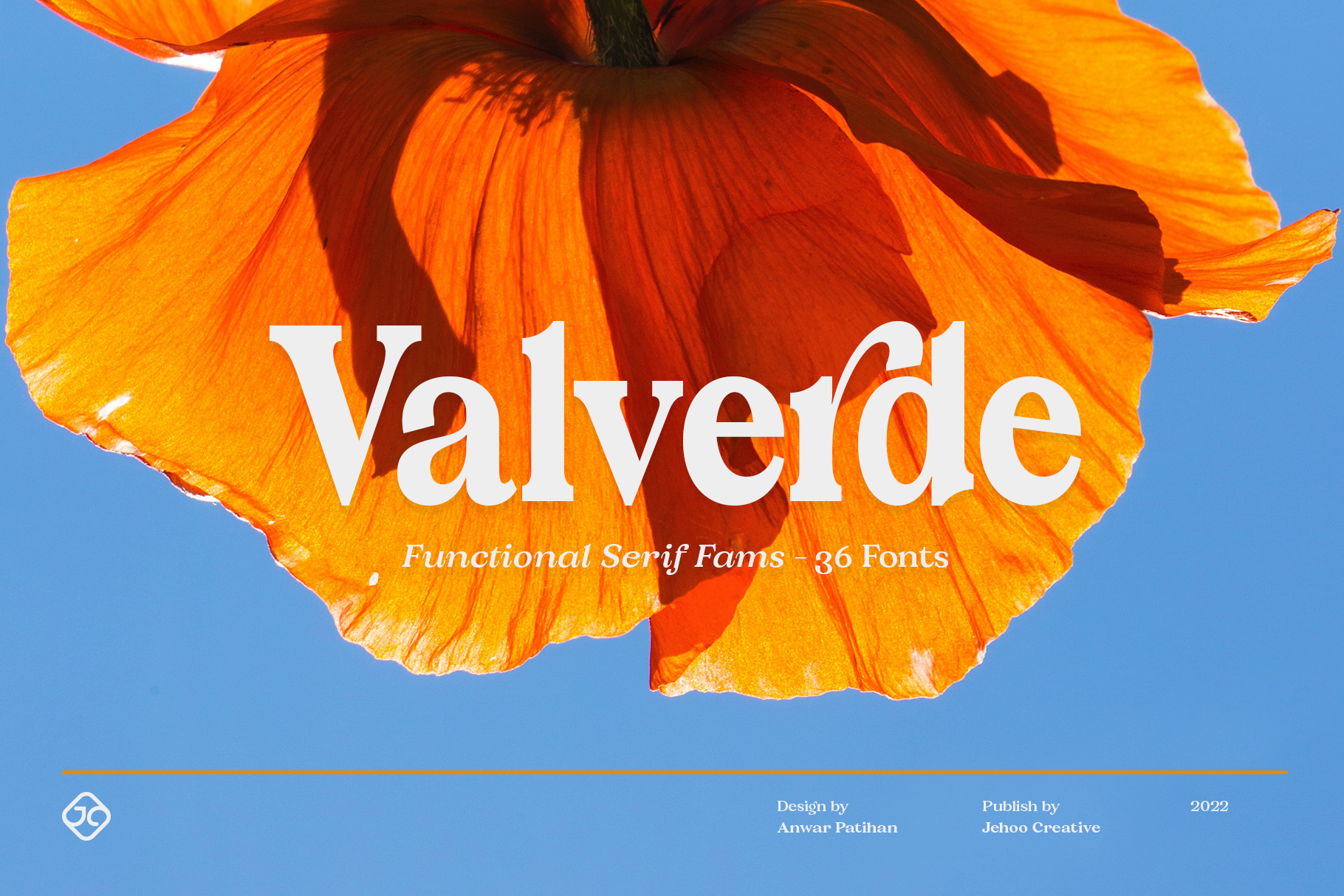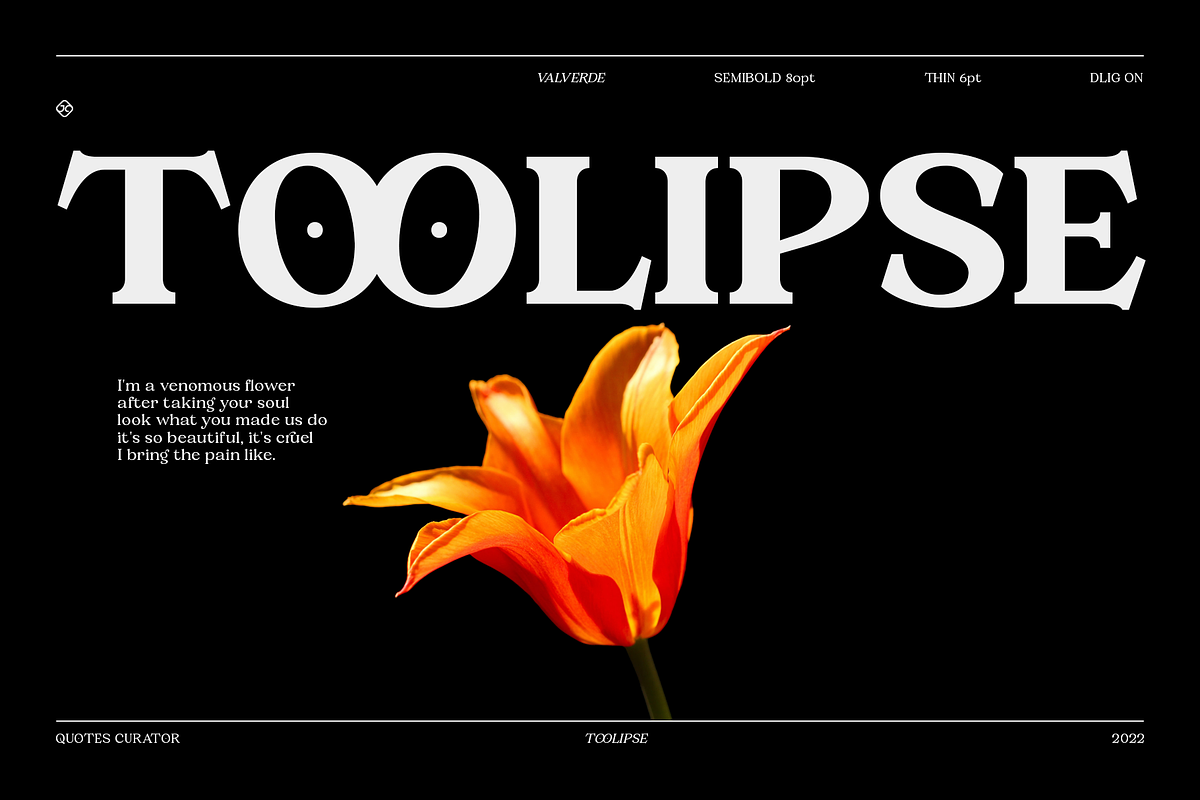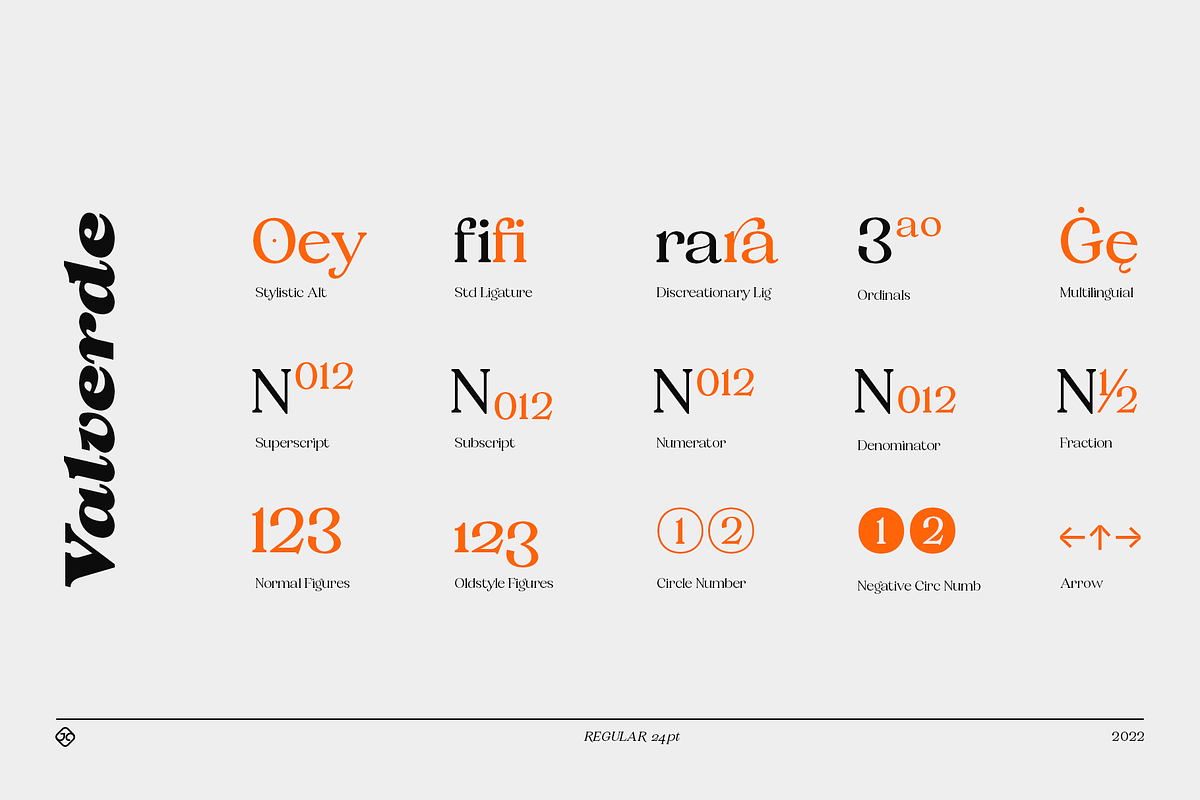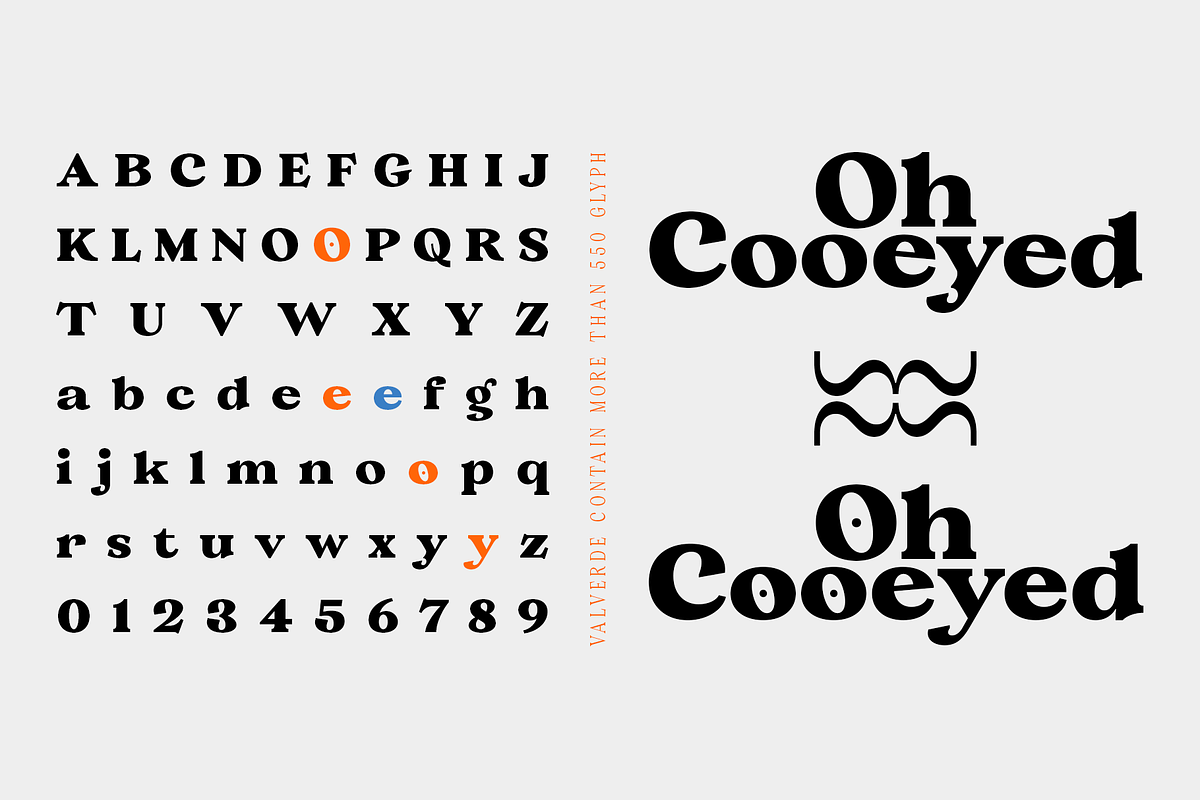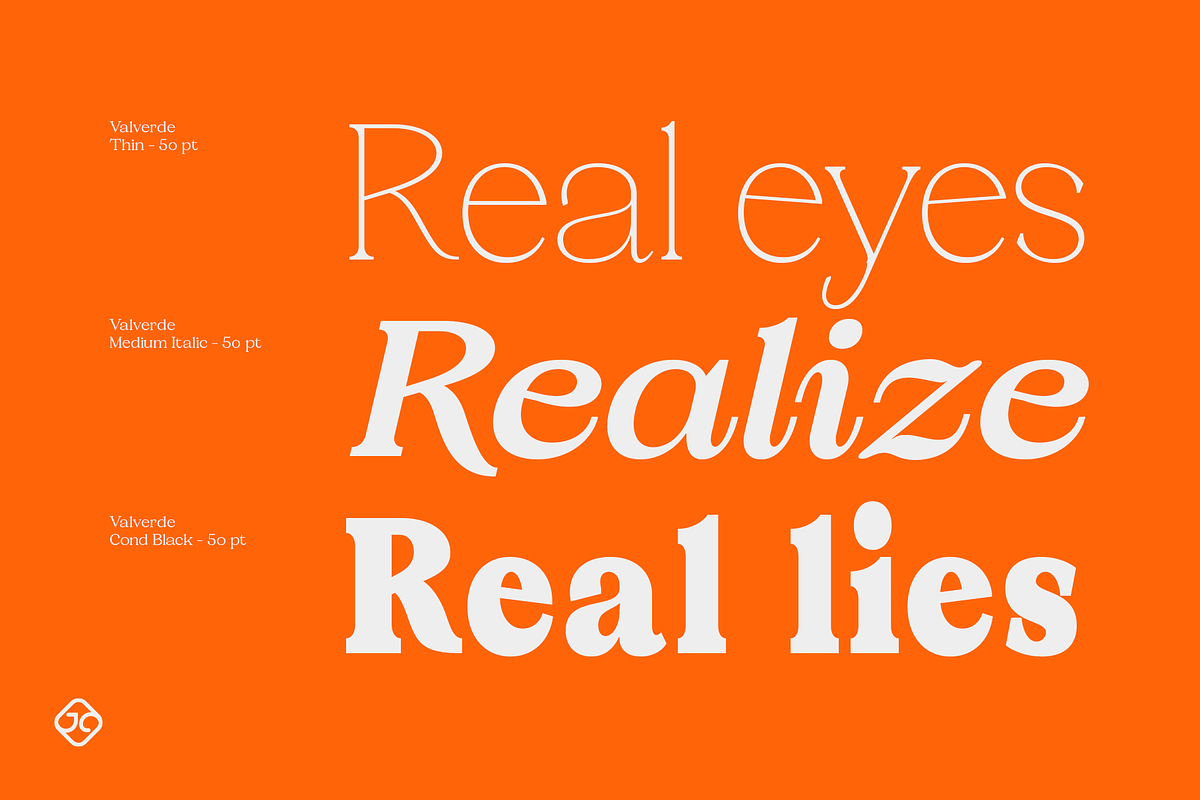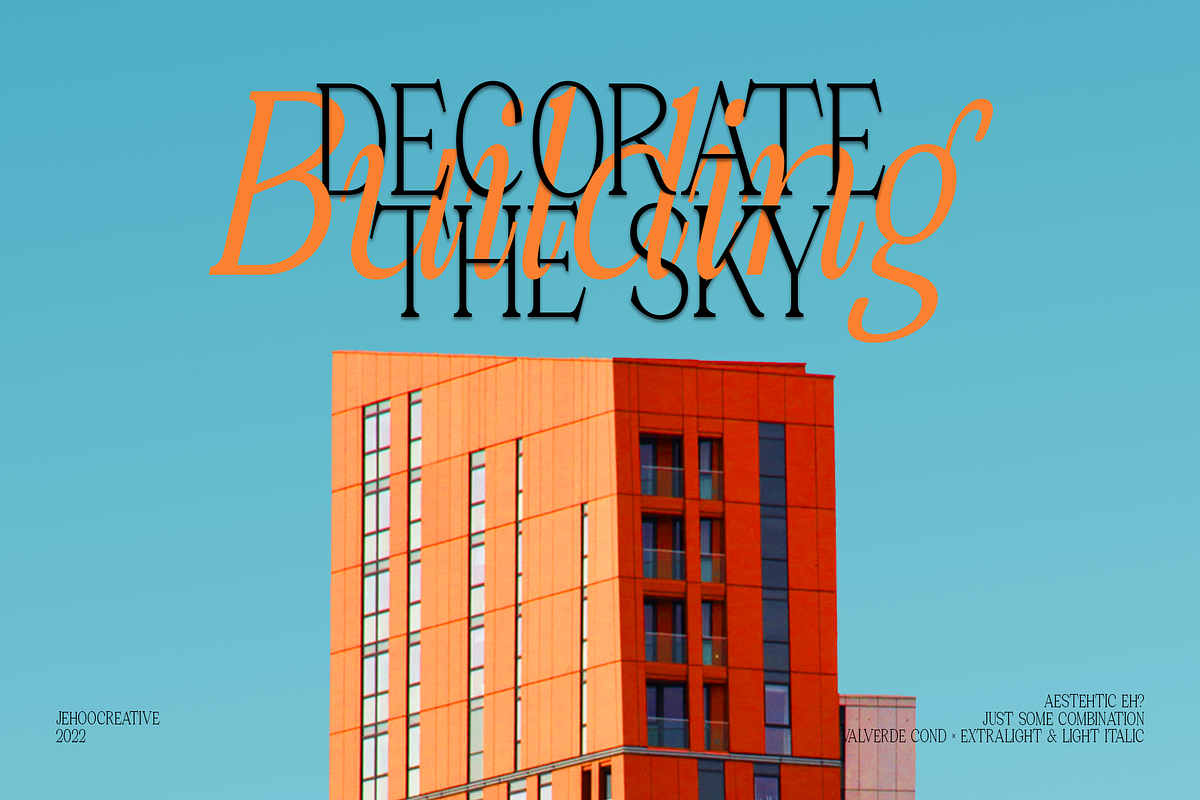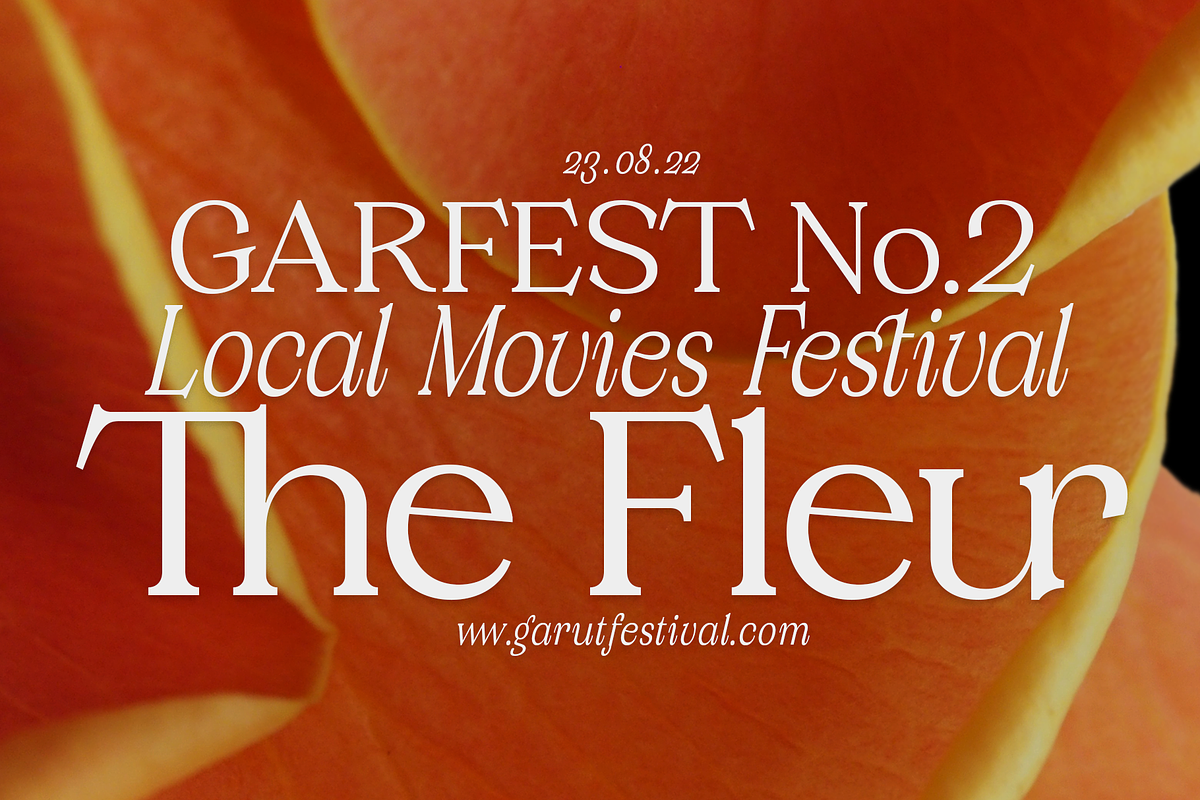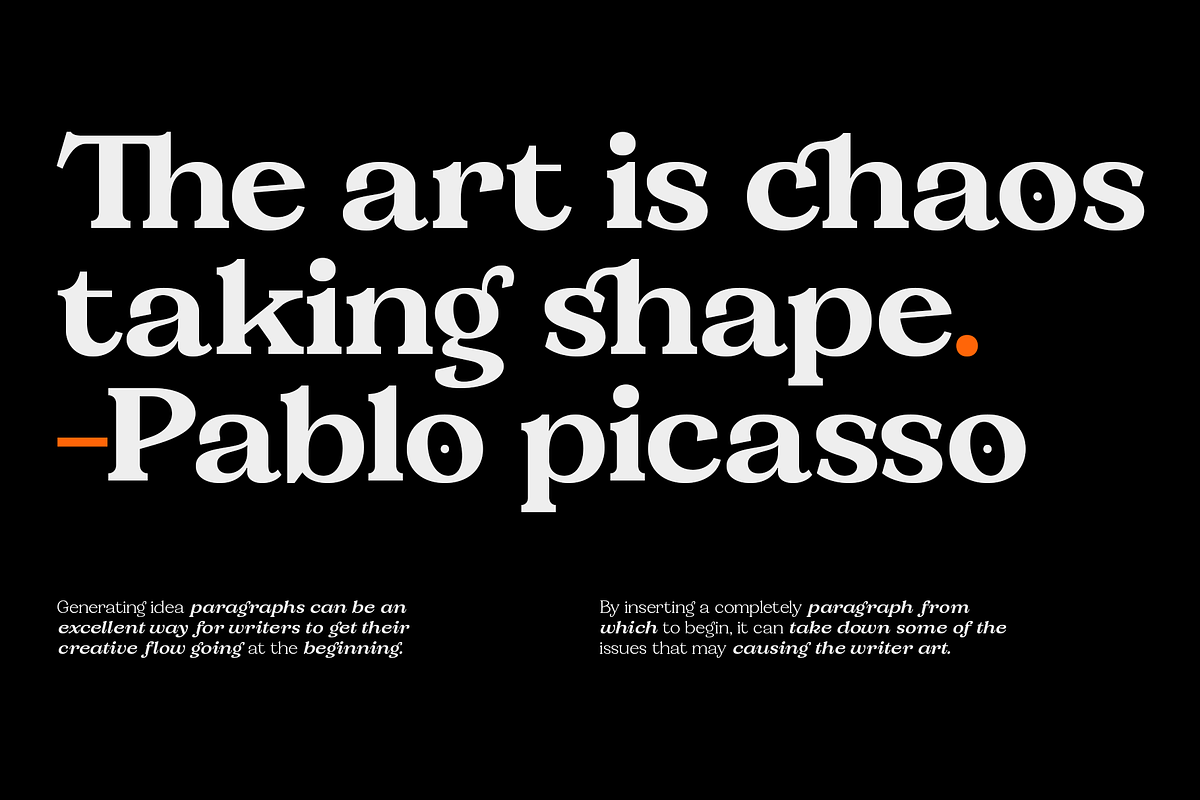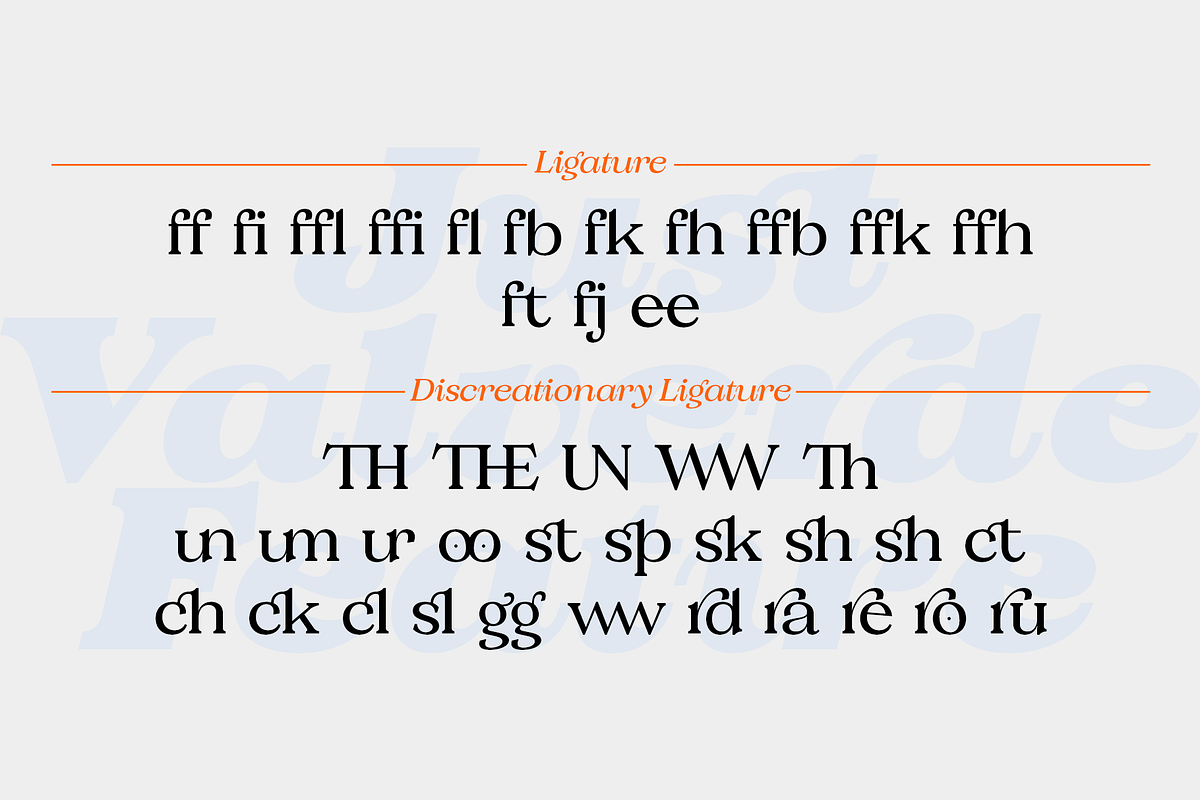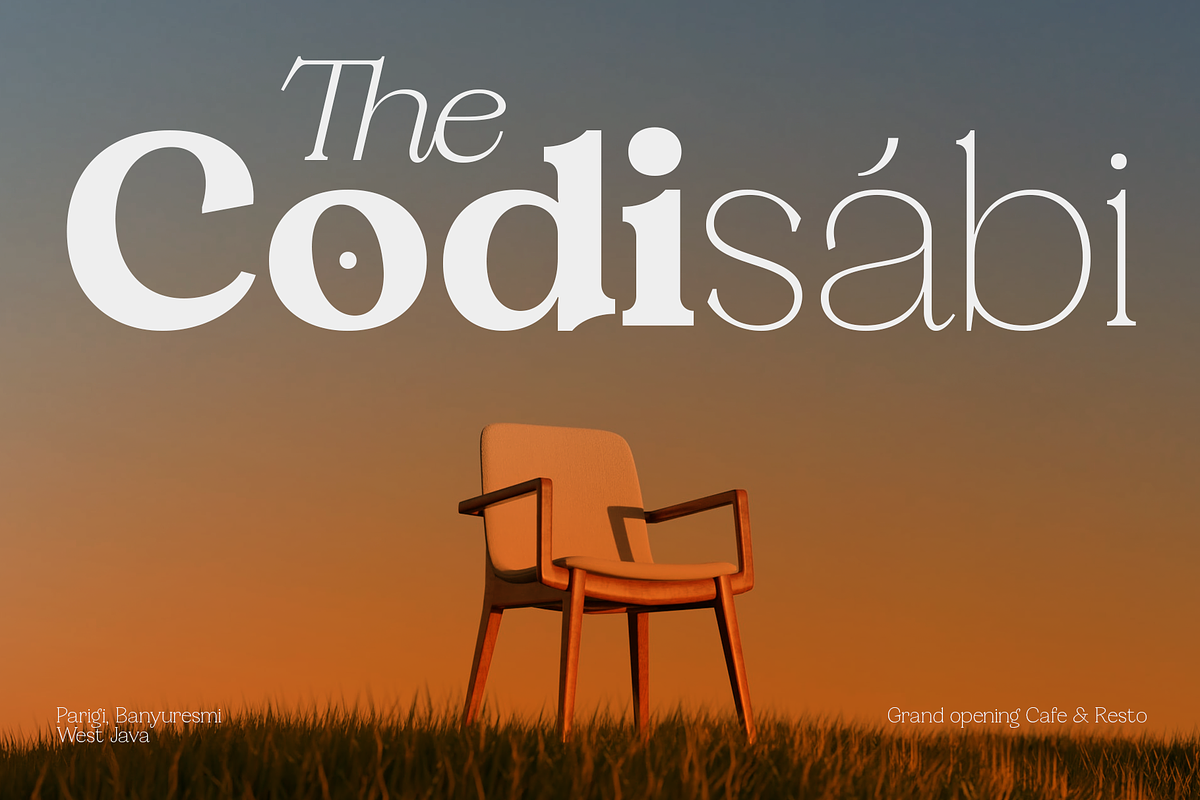
Valverde Functional Serif-36 Fonts
Valverde is a super-serif font family with 2 widths condensed and normal, each width consists of 18 fonts and has a complete weight from thin to black combined with beautiful italic cuts to meet the needs of any design in any format. Inspired by the type of vintage look that has recently become a trend, this letter character has an elegant, sharp impression. Opentype features such as Stylistic Alternate and Ligature on the Valverde family make it look more aesthetic so that it fits in a classy modern look.
Stunningly beautiful and modern serifs make them an essential addition to any type of tool kit.